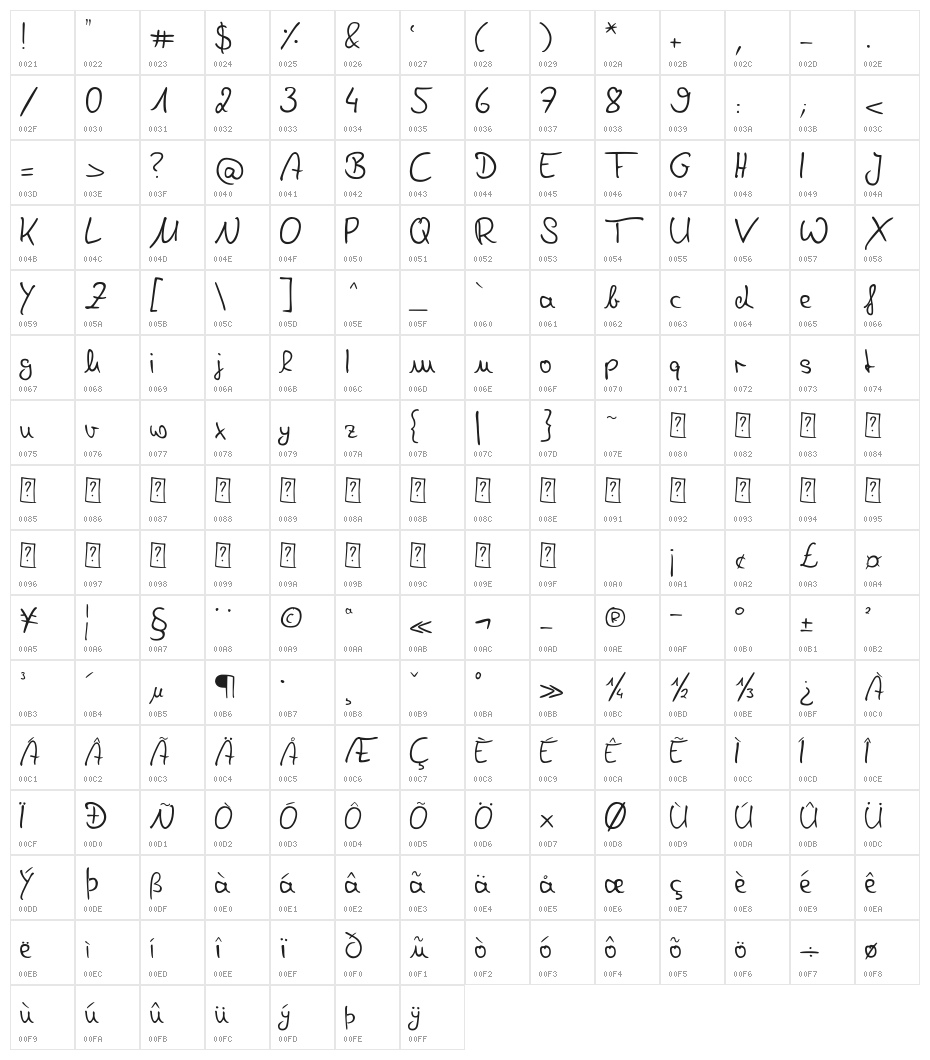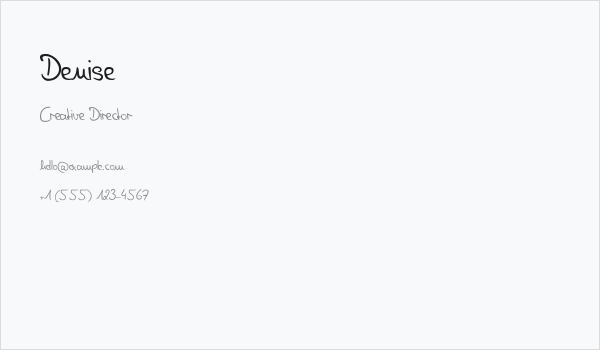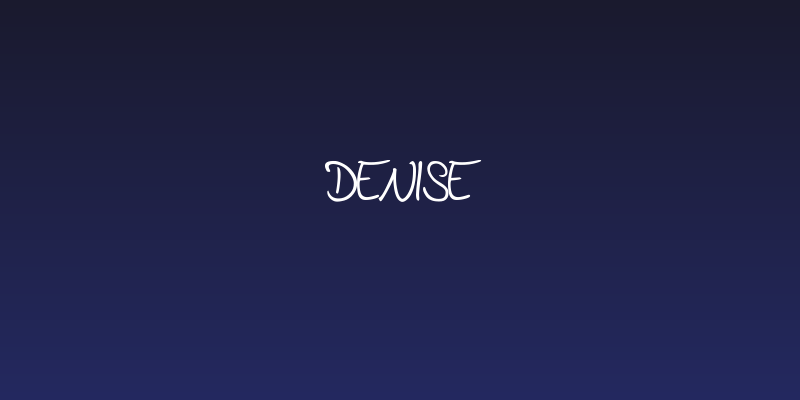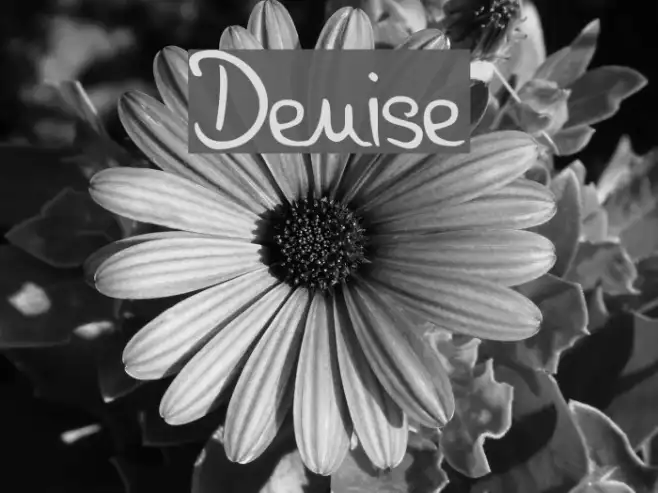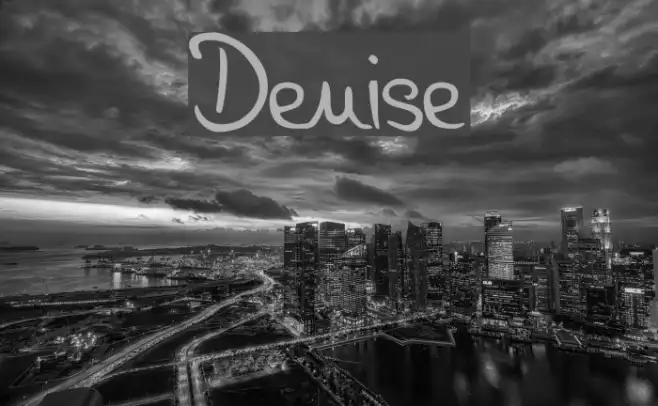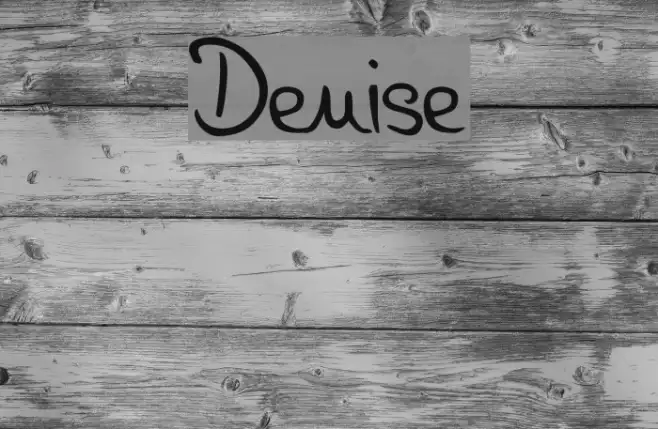
Denise Font
Denise Description
This font features a playful and casual handwritten style, characterized by its fluid and dynamic strokes. The letters are slightly slanted, giving a sense of movement and energy. Uppercase letters are bold and prominent, while lowercase letters maintain a consistent flow with rounded edges. The numerals are clear and easy to read, matching the overall informal aesthetic. Special characters are creatively integrated, maintaining the font's lively and approachable feel. This font is perfect for projects that require a personal touch, such as invitations, greeting cards, or creative branding.
| Proposed Projects | Ideal for invitations, greeting cards, personal branding, and creative projects. |